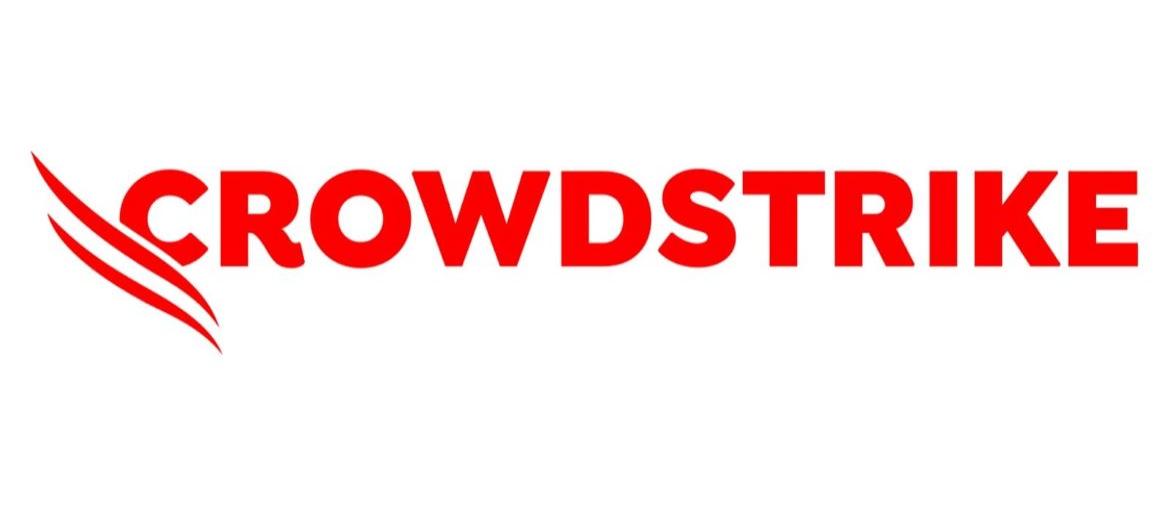
CrowdStrike Font
What Font is CrowdStrike?
CrowdStrike Font is based on Isidora Sans Black, a bold geometric sans-serif by Latinotype, known for its tight spacing, clean lines, and strong industrial presence. For the unique look of the first “R” in the logo, designers can reference Isidora Sans Alt Black, which provides a closer match to the style seen in the official branding. While the original typefaces are commercial and require licensing for use, a free CrowdStrike-style alternative font is also available, offering a similar angular, modern appearance suitable for cybersecurity visuals, tech branding, and high-impact digital layouts.
About CrowdStrike
Founded in 2011, CrowdStrike is a leading cybersecurity company focused on threat intelligence, cloud-native endpoint protection, and breach response. Its Falcon platform monitors, detects, and prevents sophisticated attacks across enterprise systems using AI-driven technology. Today, CrowdStrike is trusted globally by organizations, governments, and security experts to safeguard digital infrastructure and protect against evolving cyber threats.